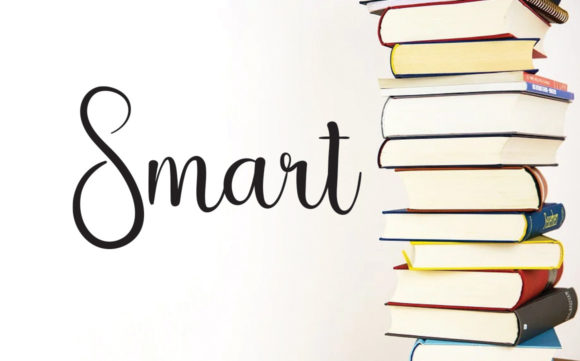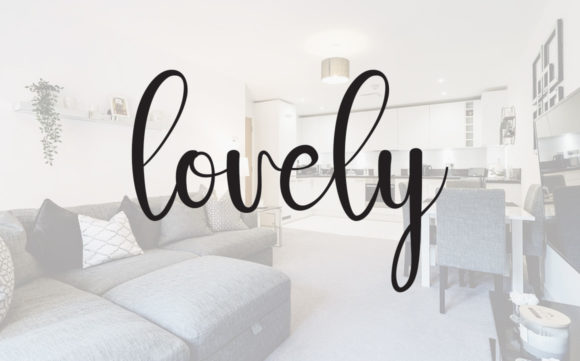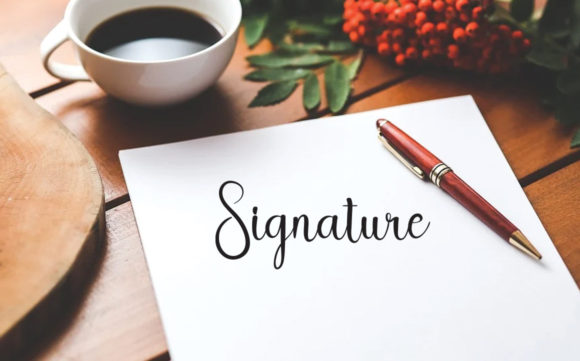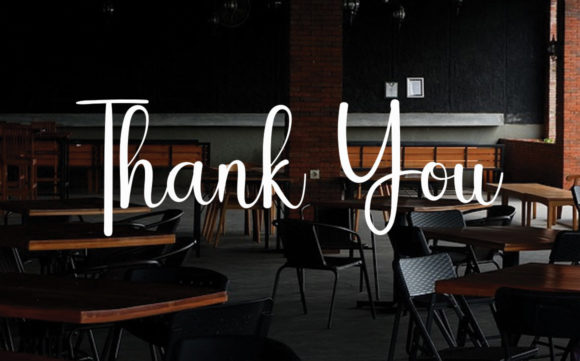
About Romantic & Harmonis Font
Romantic & harmonis is a beautiful and flowing handwritten font. Use it for wall displays, wedding invitations, social media post logos, advertisements, product packaging, product designs, labels, photography, watermarks, invitations, stationery, and any project that requires impressive typography.